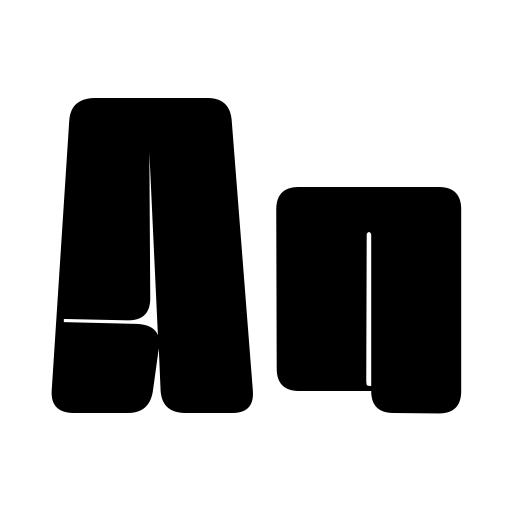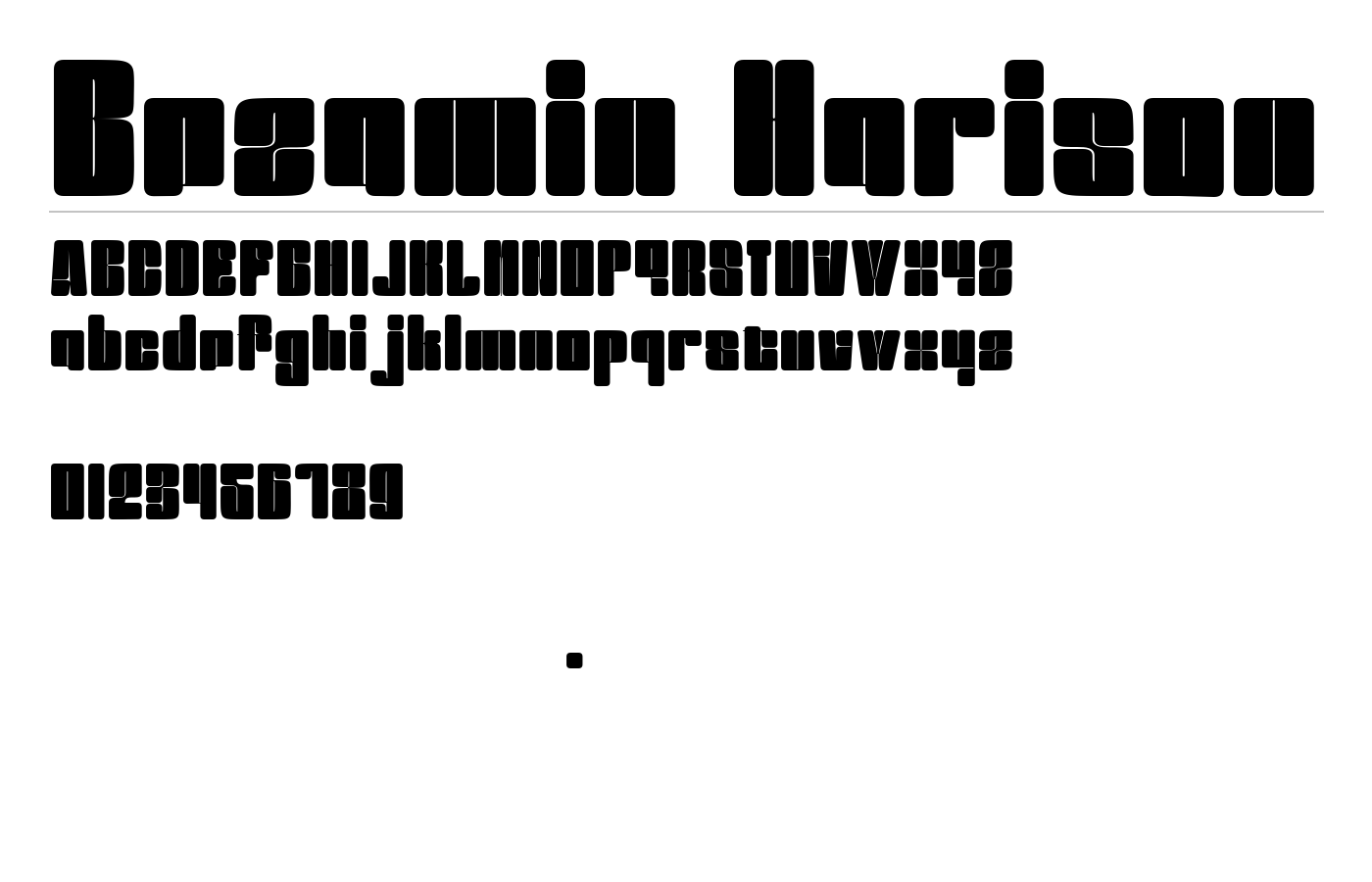
Bezamin Harison is a bold, condensed sans-serif font with a modern and geometric character. Its strong vertical strokes and tight spacing create a striking, industrial feel, perfect for headlines and logos that need a futuristic or tech-inspired edge. This font works well in branding and display uses where a powerful and distinctive presence is desired.
Bezamin Harison Font
About Bezamin Harison Font
| Font family | Bezamin Harison Font |
| Designer | Muksalcreative |